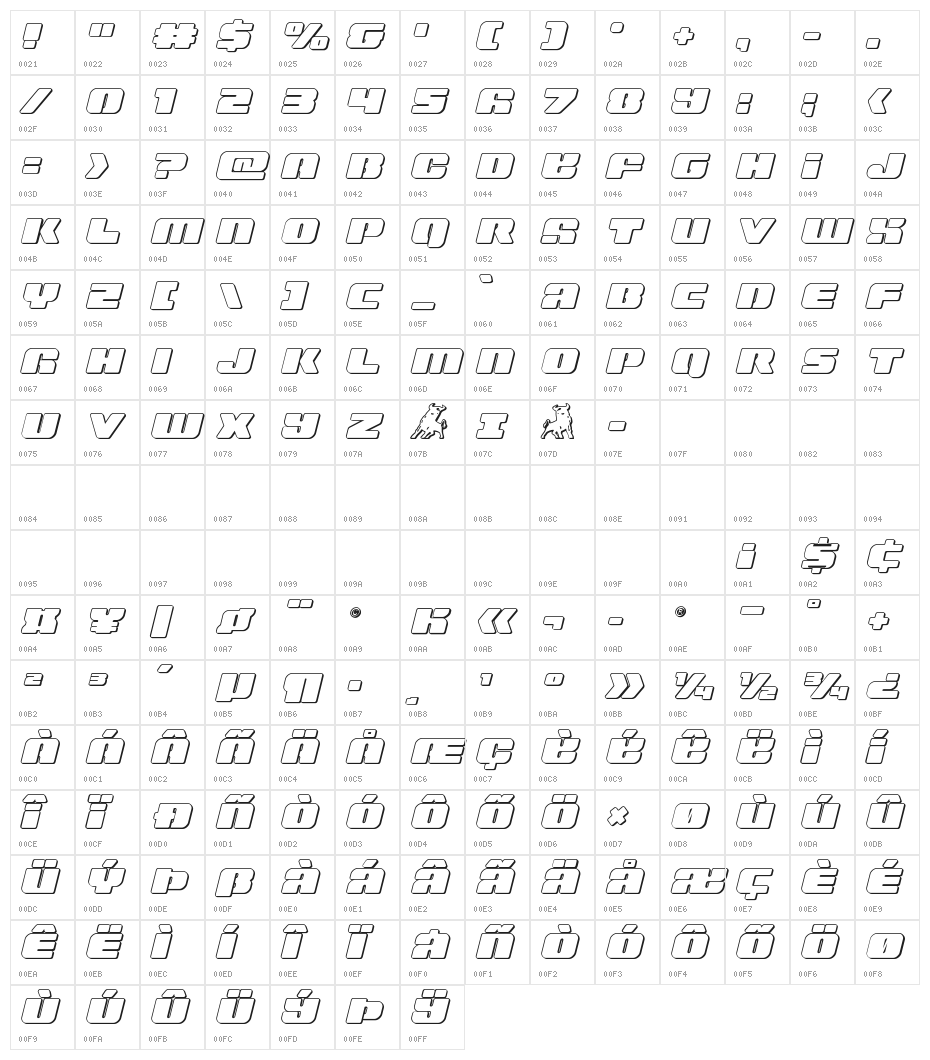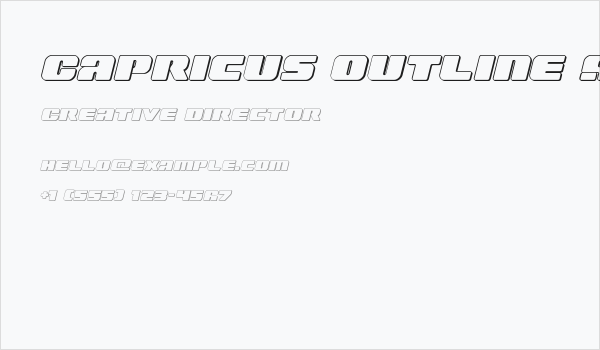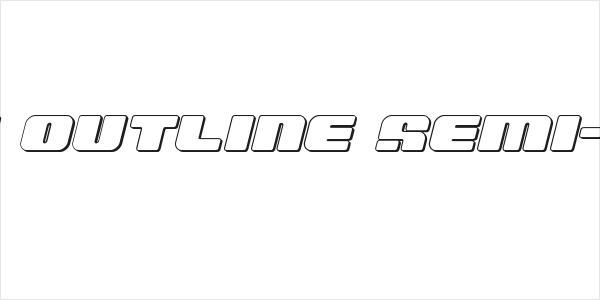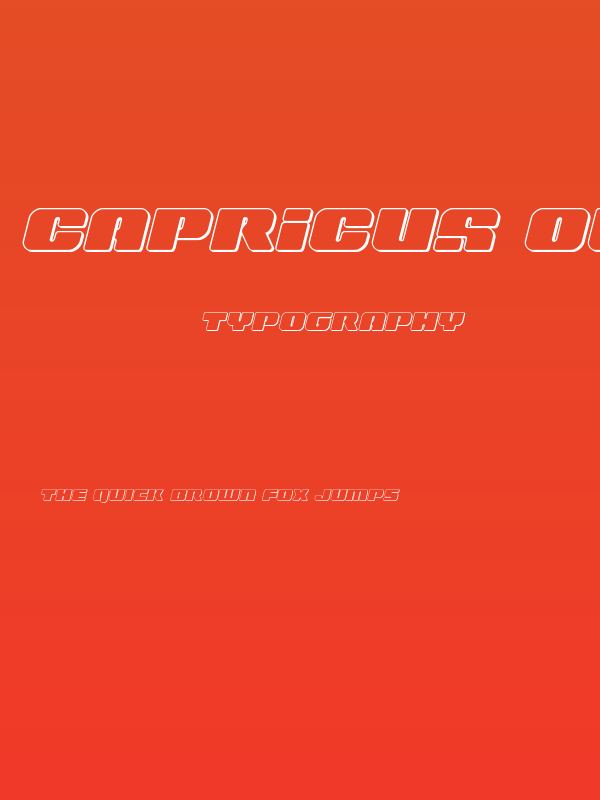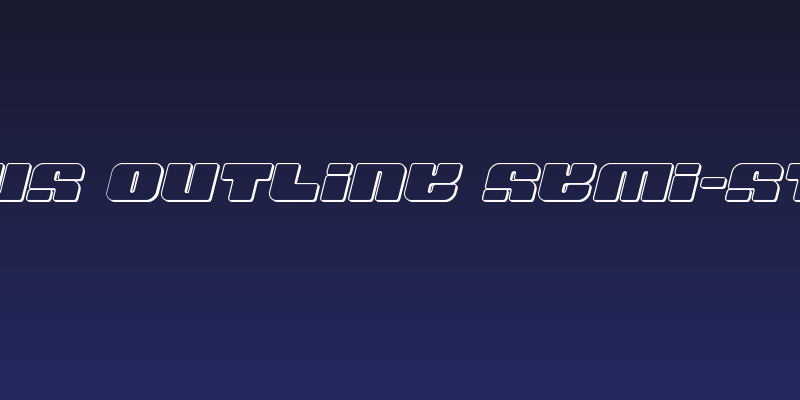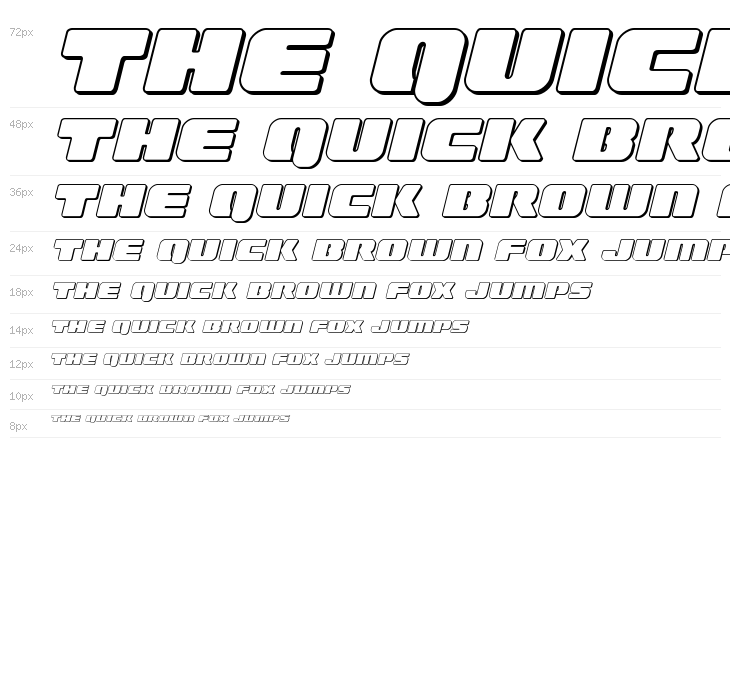
Capricus Outline Semi-Straight Font
Capricus Outline Semi-Straight Description
This font features a bold, geometric outline style with semi-straight edges, creating a modern and futuristic appearance. Each character is enclosed within a consistent outline, giving it a distinct and structured look. The uppercase and lowercase letters maintain a uniform height, enhancing readability while adding a unique aesthetic. The numbers and special characters follow the same design principles, ensuring a cohesive appearance across all glyphs. This font's design is both eye-catching and versatile, making it suitable for various creative applications.
| Proposed Projects | Ideal for branding, posters, headlines, and digital artwork where a modern and futuristic look is desired. |